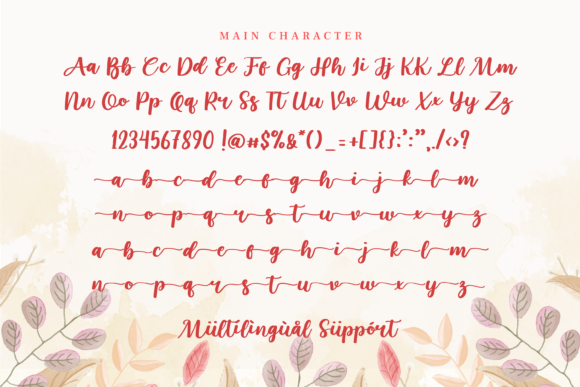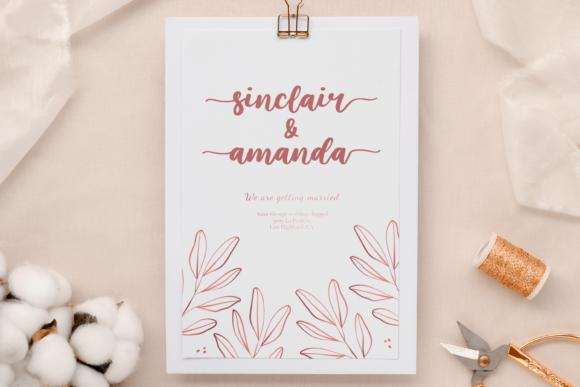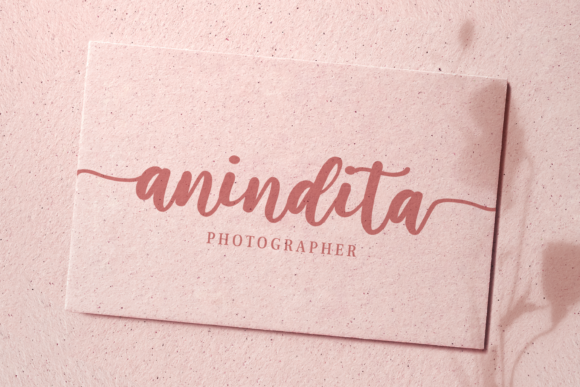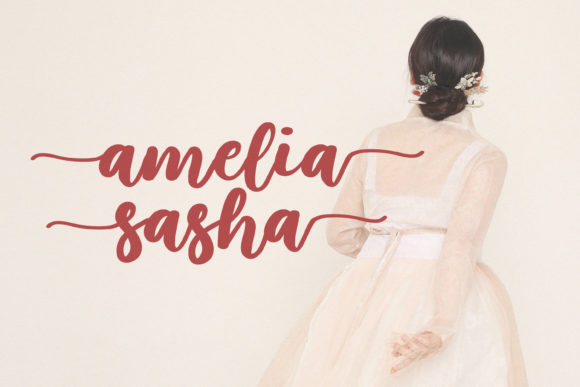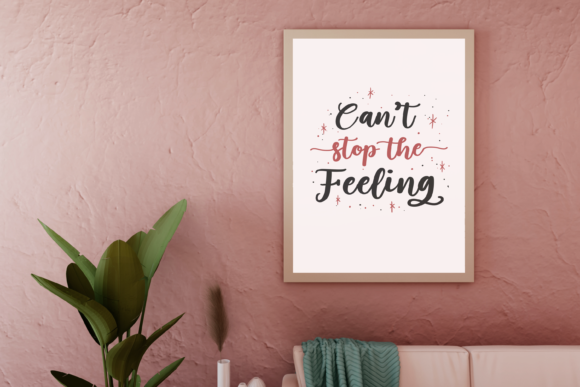
The Perfect Brushstroke: Introducing Bianica Font
As a designer, there’s nothing quite like the thrill of bringing a new idea to life. You sit down at your desk, pen in hand, and begin to sketch out a concept that’s been floating in your mind for days. The scribbles start to take shape, and before you know it, you’ve created something truly special. For those of us who live for this moment, the right tools can make all the difference. That’s where the Bianica Font comes in – a lovely and timeless handwritten font that’s perfect for creating eye-catching logos, branding, and quotes.
With its elegant, hand-crafted feel, the Bianica Font is a valuable addition to any designer’s toolkit. And with PUA encoding, you’ll have access to all the glyphs and swashes you need to bring your vision to life with ease. Whether you’re working on a personal project or a client’s campaign, the Bianica Font is sure to help you create something truly unforgettable.
- Unique Characteristics: Bianica is a high-quality, professional font designed for use in various applications, including logos, titles, and body text. It features a modern and elegant design with a unique blend of classic and contemporary elements.
- Font Style: Script, Calligraphy
As a designer, I was excited to dive into the Bianica Font and see what it had to offer. Here’s my honest review:
- ✨ Unique and elegant design: Bianica Font has a distinct, flowing style that’s perfect for headings and titles. It’s sure to grab attention and add a touch of sophistication to any design.
- ✨ Wide range of weights: With multiple weights available, Bianica Font is incredibly versatile and can be used to create a range of moods and atmospheres.
- ✨ Excellent legibility: The font is easy to read, even at small sizes, making it perfect for body text and smaller design elements.
- ⚠️ Limited language support: Bianica Font may not support as many languages as other fonts, which could be a limitation for designers working on international projects.
- ⚠️ May not be suitable for large blocks of text: While Bianica Font is excellent for headings and small chunks of text, it may not be the best choice for large blocks of body text due to its flowing, elegant design.
Bianica Font is a beautiful, unique font that’s perfect for designers looking to add a touch of elegance to their projects. While it may have some limitations, its versatility and excellent legibility make it a great choice for a wide range of design applications.